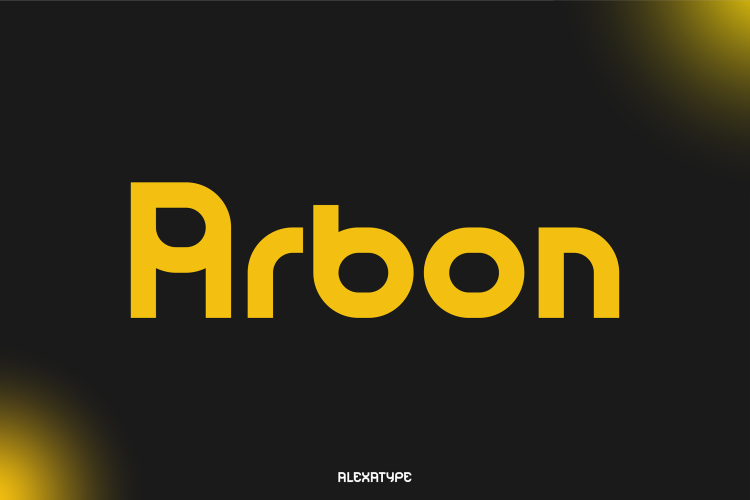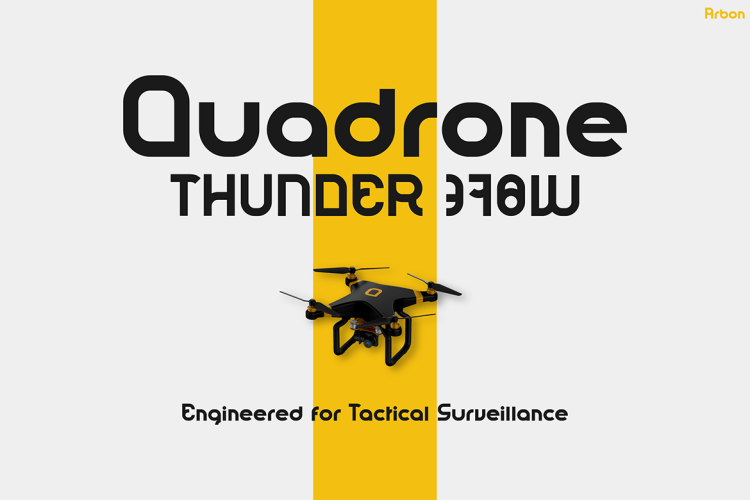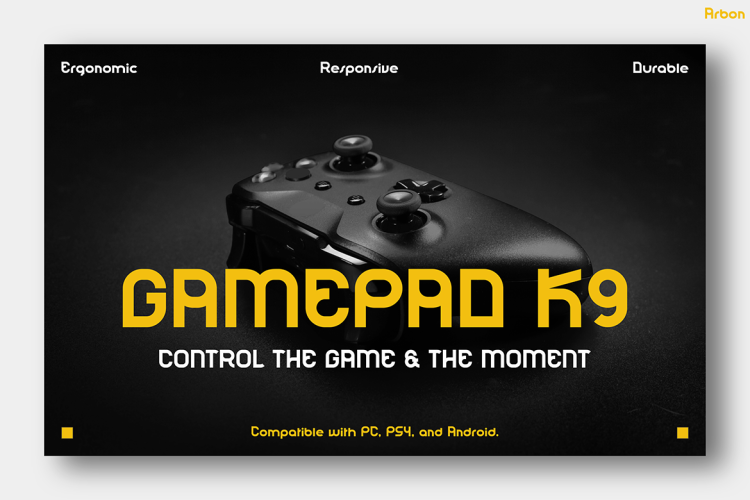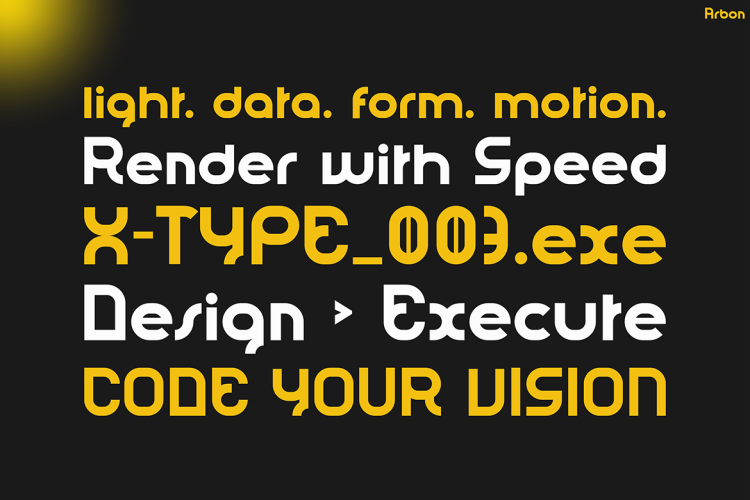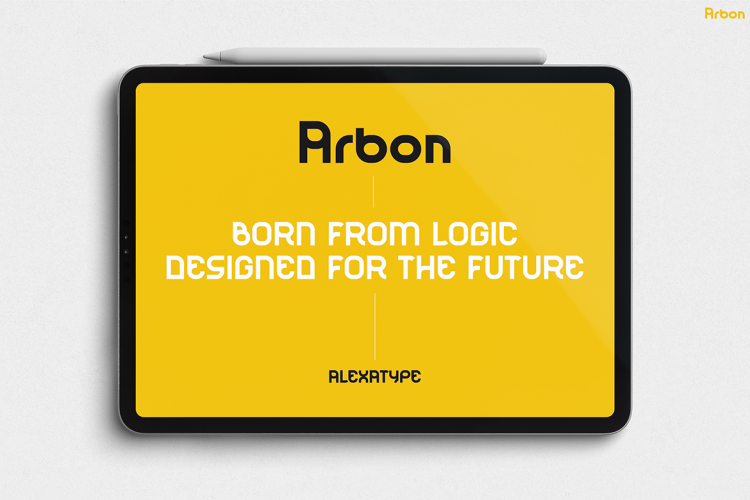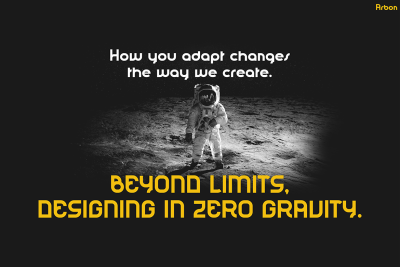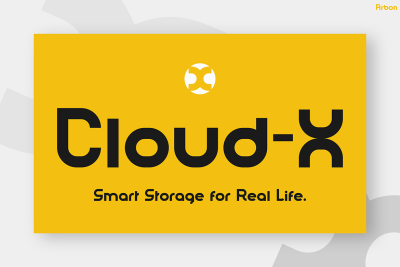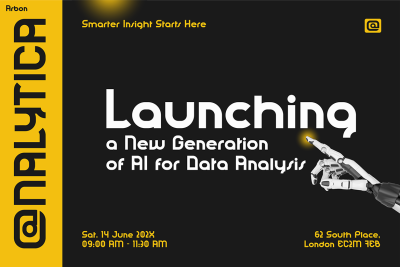
Futuristic Font ARBON: Born from Logic, Designed for the Future
Futuristic Font ARBON is a sleek and modern typeface inspired by innovation, minimalism, and digital aesthetics. From the very first glance, it radiates a sense of structure and precision. With its rounded corners and geometric flow, ARBON delivers a futuristic yet friendly tone. This makes it an ideal choice for tech, aerospace, AI, and sci-fi-inspired projects.
The font seamlessly blends classic legibility with contemporary design. Letters are wide, evenly spaced, and crafted to express clarity and speed. Whether itโs used on a screen, digital interface, or print, ARBON remains clean and impactful. Each letterform feels engineered โ like it belongs in tomorrowโs world.
Youโll find it visually compelling across a range of settings: tech packaging, bold product launches, futuristic branding, UI/UX mockups, or science presentations. Itโs not only about form โ ARBON delivers function with strong versatility across platforms.
Perfect For:
Tech Brands, UI/UX Designers, Startups, and Future-Driven Creatives
Futuristic Font ARBON is a perfect fit for creators who live at the edge of innovation. Whether youโre designing for startups, AI tools, smart devices, or space-tech, this font will enhance your brand’s forward-thinking image.
Startups can use ARBON to look both credible and cutting-edge. UI/UX designers will appreciate how its form supports readability on digital interfaces. In education or scientific fields, ARBON presents ideas with clarity and authority. If your project explores technology, robotics, science fiction, or digital transformation, this font will speak your language โ clean, modern, and ambitious.
It also suits product packaging for futuristic gadgets, gaming consoles, drone tech, or even conceptual apps. You name it โ if it belongs in the future, ARBON belongs on it.
Final Thoughts
Donโt settle for fonts that feel stuck in the past. Futuristic Font ARBON gives your brand or project the clarity and boldness of tomorrow. It’s not just another typeface โ itโs a visual language for the forward-thinkers.